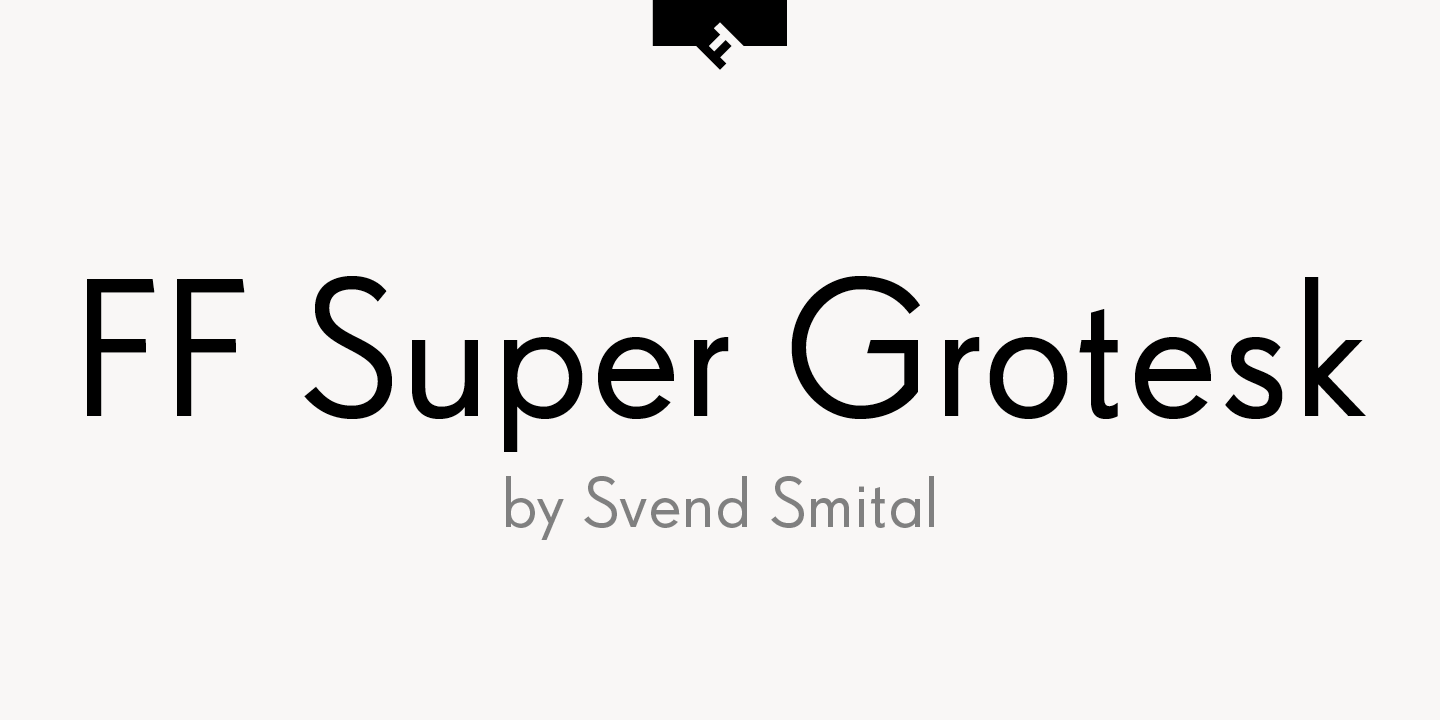
FF Super Grotesk Font is perfect for modern corporate identities, tech startup branding, minimalist web design, contemporary architecture firms, innovative product packaging, progressive marketing campaigns, digital interface design, industrial design portfolios, avant-garde editorial layouts, and cutting-edge advertising materials. This powerful typeface excels in environments where bold simplicity and uncompromising functionality are essential for impactful communication.
What makes FF Super Grotesk Font exciting is its fearless embrace of pure geometric form that strips away unnecessary ornamentation to reveal typography's essential power. The font features ultra-simplified letterforms with extreme clarity and mathematical precision that create maximum visual impact through minimal means. This reductive approach makes it ideal for brands seeking to communicate confidence, innovation, and uncompromising quality through bold typographic statements.
FF Super Grotesk Font family includes Thin, Light, Regular, Medium, Bold, Black, Ultra Black, and corresponding Italic variants. Each weight maintains the font's distinctive minimalist character while offering comprehensive flexibility for creating striking typographic hierarchies that emphasize content clarity and visual impact over decorative elements.
Professional designers recognize the font's exceptional clarity and its ability to create powerful visual statements through geometric simplicity. The ultra-clean letterforms and optimized proportions ensure maximum readability while establishing strong brand presence that commands attention through pure typographic authority.
When implementing FF Super Grotesk Font in design projects, the results consistently demonstrate both functional excellence and bold aesthetic impact. The font's minimalist personality makes it particularly effective for brands in technology, architecture, design, and innovation sectors where clarity, precision, and progressive thinking are paramount to market leadership.
For digital environments, FF Super Grotesk Font renders exceptionally well across all platforms and devices, maintaining its geometric purity and maximum readability from mobile interfaces to large-scale digital displays. Its optimized metrics ensure consistent brand expression across technological contexts.
Creative agencies frequently recommend FF Super Grotesk Font for clients seeking powerful, minimalist typography that communicates authority and innovation while maintaining absolute functional clarity across diverse contemporary media applications.